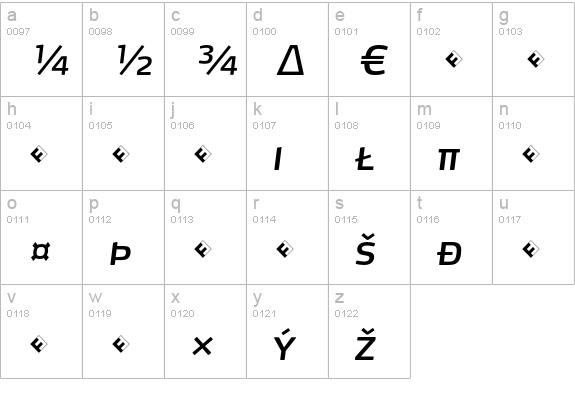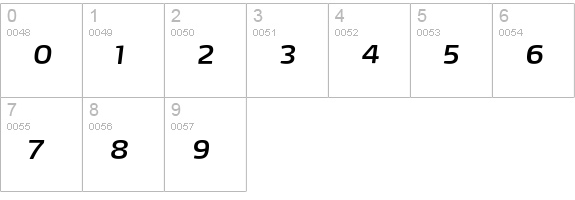
Max-BookItalicSCExpert Font Details
Max-BookItalicSCExpert is an elegant and sophisticated font that exudes a sense of professionalism and refinement. Its slender and stylish design makes it perfect for adding a touch of class to any project. This font is ideal for use in branding, editorial design, and other creative endeavors where a sleek and modern look is desired. The Max-BookItalicSCExpert font is not only visually appealing but also highly versatile, making it suitable for a wide range of applications. Its italic style adds a subtle sense of flair and sophistication to any text, making it stand out from the crowd. Best of all, Max-BookItalicSCExpert is available for free download at FontsMarket.com. This means that you can easily access this stunning font and incorporate it into your projects without any cost. Don't miss out on the opportunity to enhance your designs with the timeless elegance of Max-BookItalicSCExpert font today.